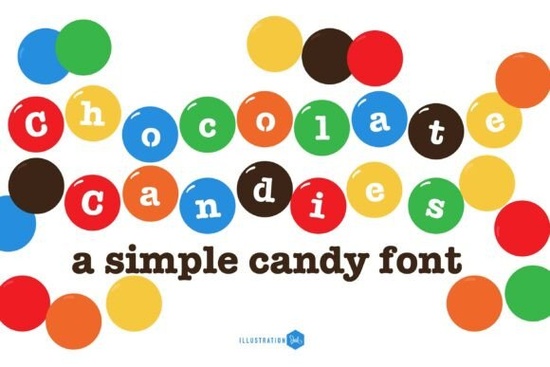
Looking for a typeface that feels like opening a bag of your favorite candy? Chocolate Candies Family Font is a playful display typeface that places clean, slab-serif lowercase letters inside glossy, multi-colored button candy shapes. It's bold, colorful, and unmistakably fun the kind of font that makes people smile before they even read the words. If you design for kids' brands, bakeries, party invitations, or cheerful social media content, this one deserves a closer look.
What makes Chocolate Candies different from other playful fonts?
Plenty of display fonts try to look fun, but most stop at rounded edges or bouncy baselines. Chocolate Candies goes further by actually embedding each letterform inside a candy button shape the same style you'd find wrapped in colorful foil at a gas station counter. The result is a typeface that carries real nostalgic weight without feeling childish or cheap.
A few things that stand out:
- Heavy structural weight the letters hold up at large sizes and still read clearly when scaled down for packaging details.
- Multi-colored candy shells each character comes wrapped in a distinct, vibrant hue, so words naturally create that striped candy pattern.
- Clean lowercase letterforms the actual typography inside each candy is neat and legible, balancing the playful exterior with solid readability.
- Conversational movement the layout rhythm feels casual and approachable, not stiff or overly geometric.
This combination bridges nostalgic childhood snacks and modern pop-art branding in a way that very few typefaces attempt.
Where does this font work best?
Chocolate Candies shines in projects where energy and color matter more than formality. Here are the most common uses:
- Children's party invitations birthday invites, baby shower cards, and holiday party flyers all benefit from the candy visual metaphor.
- Bakery and confectionery packaging think candy shop logos, cookie bag labels, chocolate bar wrappers, and cupcake toppers.
- Social media headers and graphics Instagram posts, YouTube thumbnails, and Pinterest pins that need to stop the scroll with color.
- Print-on-demand products t-shirts, stickers, tote bags, and notebook covers targeting younger demographics or candy-themed designs.
- Kids' menu designs and classroom materials educational posters, reward charts, and activity sheets that need a lighthearted touch.
If your audience skews young or your brand voice is playful and colorful, this font fits naturally into your toolkit.
How does it compare to other display fonts?
Every display font sets a different mood. Graffiti-style display fonts bring urban energy and street-art attitude, while something like a mechanical lettering style leans into industrial, futuristic themes. If you need a darker option for Halloween or seasonal projects, there are fonts built for that atmosphere too.
Chocolate Candies doesn't compete with those styles. It fills a specific niche: wholesome, colorful, and unmistakably sweet. It's closer in spirit to a hand-drawn crayon aesthetic or bold athletic number fonts typefaces that prioritize personality and instant visual impact over subtle sophistication.
- Best at larger sizes like most detailed display fonts, Chocolate Candies reads best on headers, titles, and logos rather than body text.
- Color is built into the design the multi-color candy effect may be part of the font's presentation, so check whether your software supports color fonts or if you'll need alternate single-color versions.
- Pair it simply a clean sans-serif or rounded body font works well alongside it. Don't stack multiple decorative fonts together.
- Check the license make sure the Chocolate Candies license covers your intended use, especially for commercial print-on-demand or product packaging.
Who is this font really for?
Chocolate Candies works well for independent candy shop owners, small bakery brands, children's event planners, Etsy sellers making party supplies, and any designer who regularly creates content for family-friendly or youth-oriented audiences. If your design projects call for warmth, color, and a sense of playful nostalgia, this typeface delivers that without requiring extra illustration work.
It's also a solid addition to any designer's font library as a seasonal option Valentine's Day promotions, Easter campaigns, and summer party themes all benefit from a candy-inspired look.